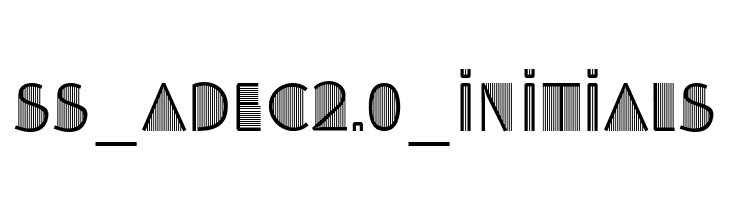
A bold, modern font with a unique striped pattern and geometric design.
A bold, geometric Art Deco font with a double-line effect.
A modern, geometric sans-serif font with a clean and balanced design.
A bold, geometric font with a modern, industrial aesthetic.
A bold, geometric font with a modern, futuristic style and uniform stroke widths.
A bold, geometric font with outlined characters and a modern, futuristic style.